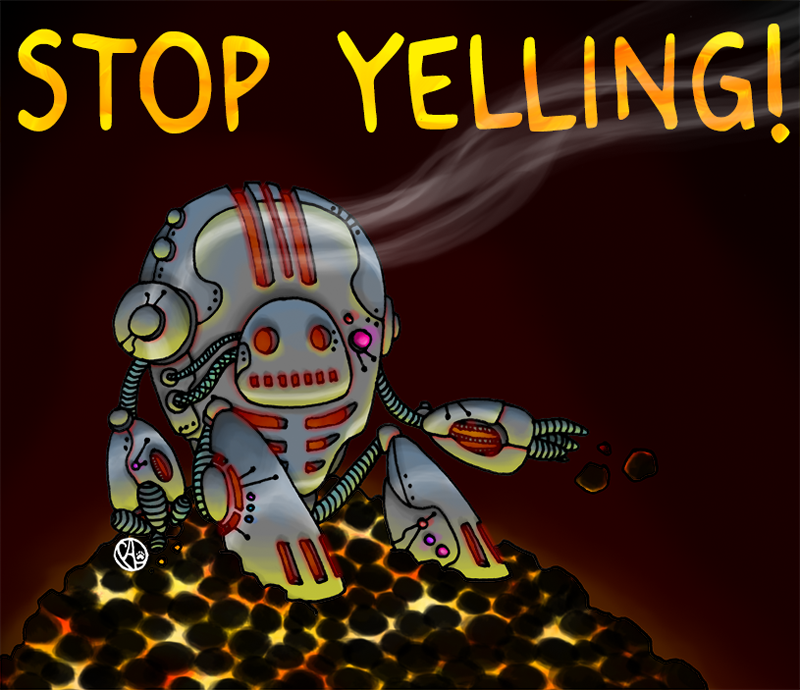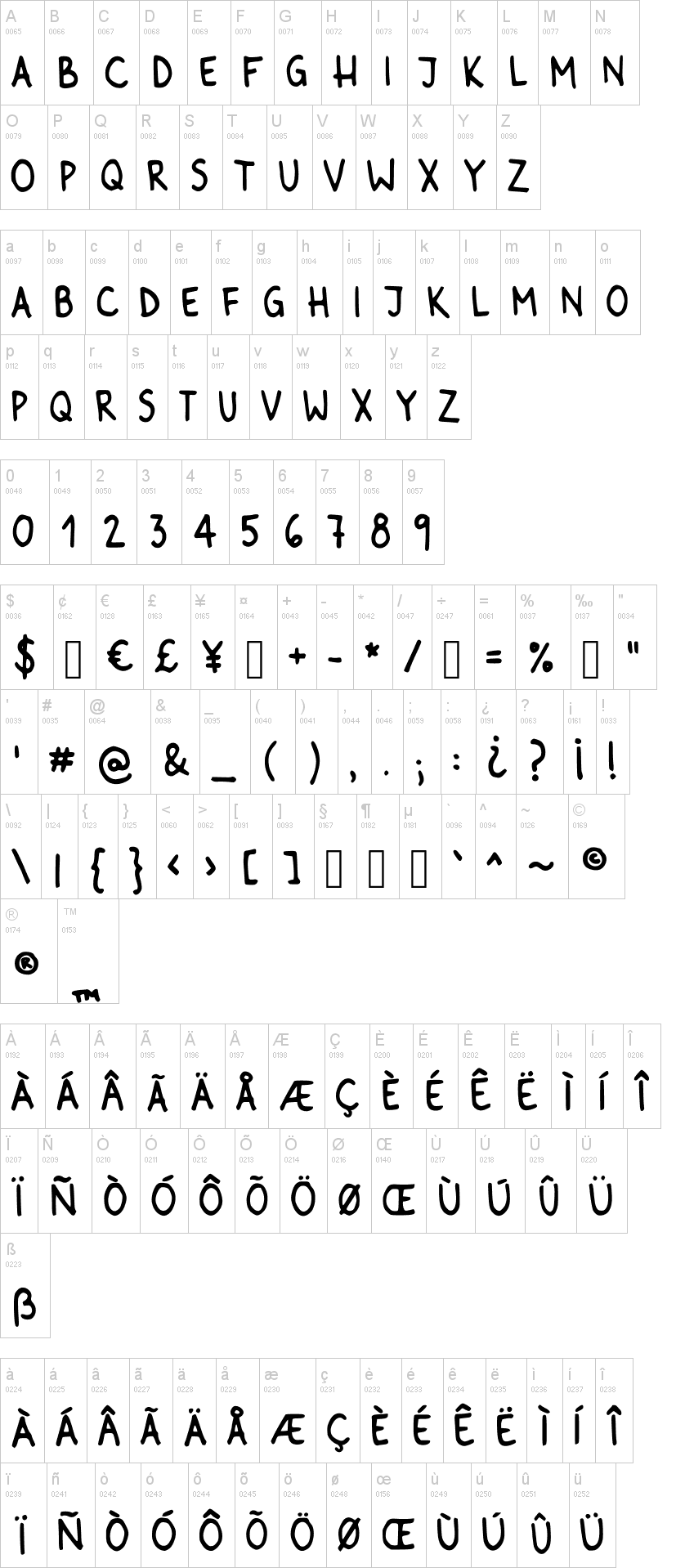
Note of the authorSTOP YELLING! v1.0
A non aggressive font of well done caps, complete punctuation and numbers, incredibly easy to read. For English, German, Spanish, French, Norwegian, Portuguese, Slovenian and anything in between. Lower cases are totally different and you'll even find the randomized characters option for a superb result on text blocks or simple lines.